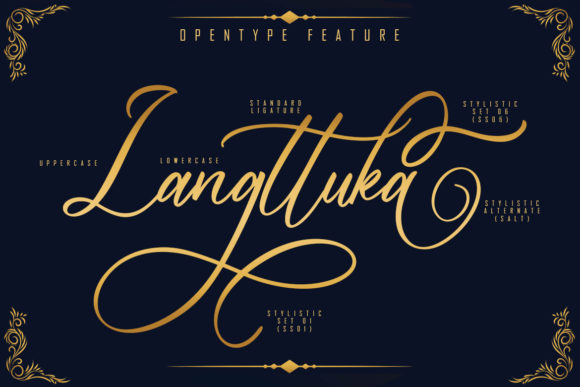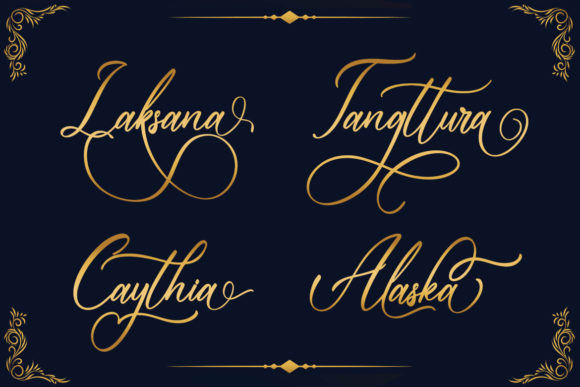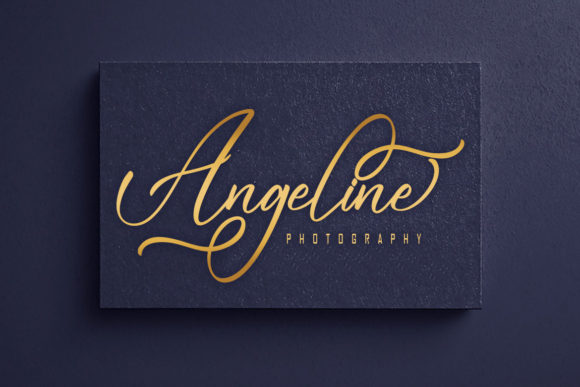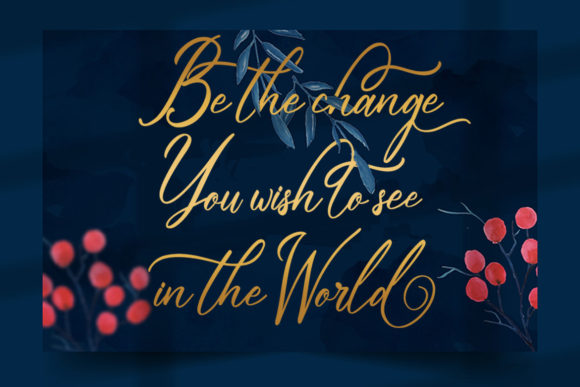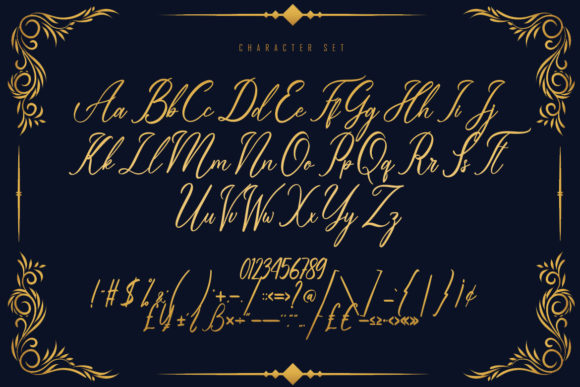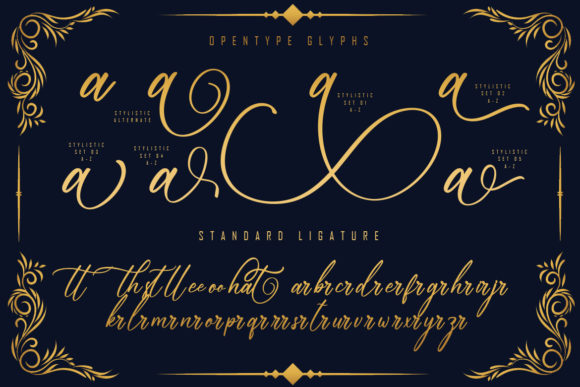
The Designer’s Delight: Fallinghat Font
I’ll never forget the time I was working on a project for a client who wanted a elegant and stylish script font. I had spent hours scouring the internet for the perfect font, but nothing seemed quite right. That was until I stumbled upon Fallinghat Font. I was immediately drawn to its ravishing style and knew I had found the one. In this article, I’ll share my experience with Fallinghat Font, its features, and how to make the most of it in your designs.
Fallinghat Font has quickly become one of my go-to fonts for elegant and sophisticated designs. Here’s what I love about it:
- ✨ Stylish and elegant script font that’s perfect for a variety of design projects
- ✅ Highly legible and versatile, making it suitable for both digital and print designs
While Fallinghat Font is an excellent choice, there are a few quirks to be aware of:
- 🤔 Some users may find the font a bit too ornate for certain projects
- ⚠️ Limited availability of certain characters, but this can be overcome with a little creativity
The Story Behind Fallinghat Font
Fallinghat Font was designed with the intention of creating a elegant and sophisticated script font that’s perfect for a variety of design projects. The designer drew inspiration from classic calligraphy and modern typography to create a unique and stylish font.
| Font Name | Fallinghat Font |
| Author | Skiiller Studio |
| What is Fallinghat Font? | Fallinghat Font is a stylish and elegant script font that’s perfect for a variety of design projects. |
| Is Fallinghat Font PUA encoded? | Yes, Fallinghat Font is PUA encoded, making it easy to access glyphs and swashes. |